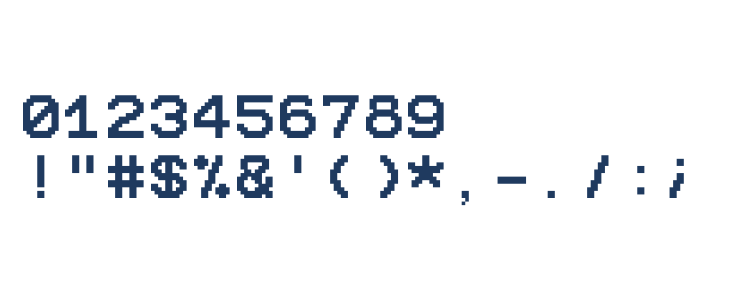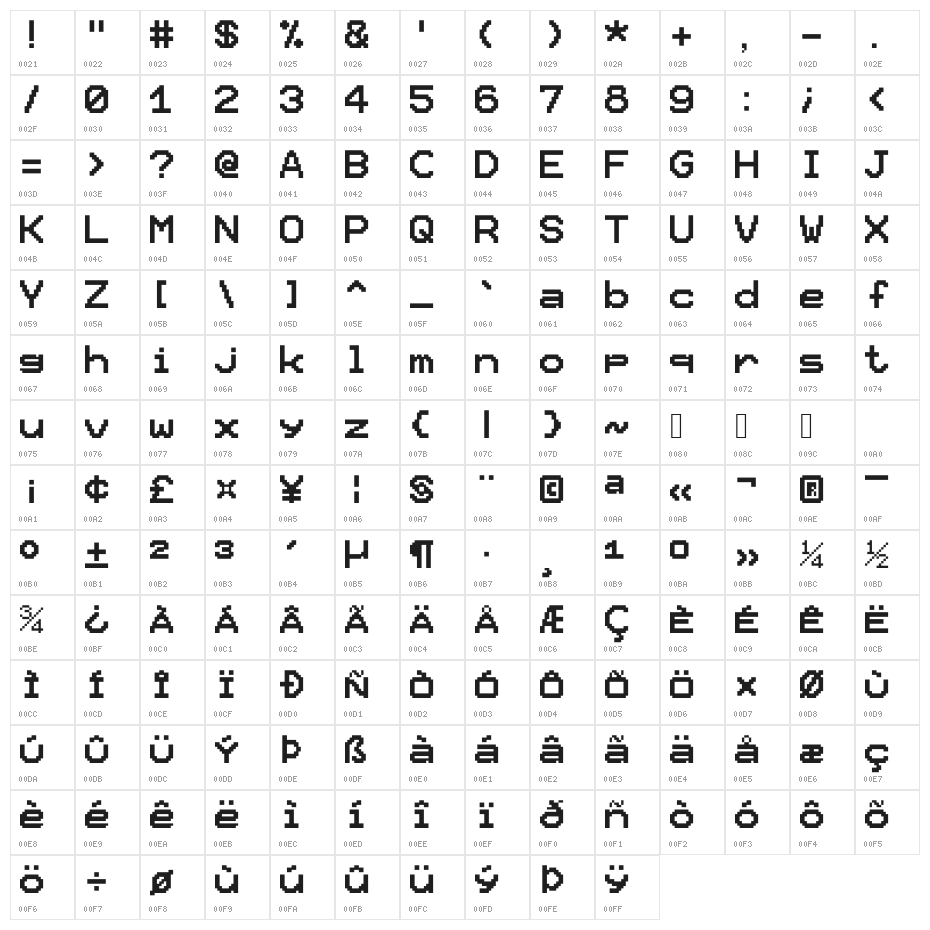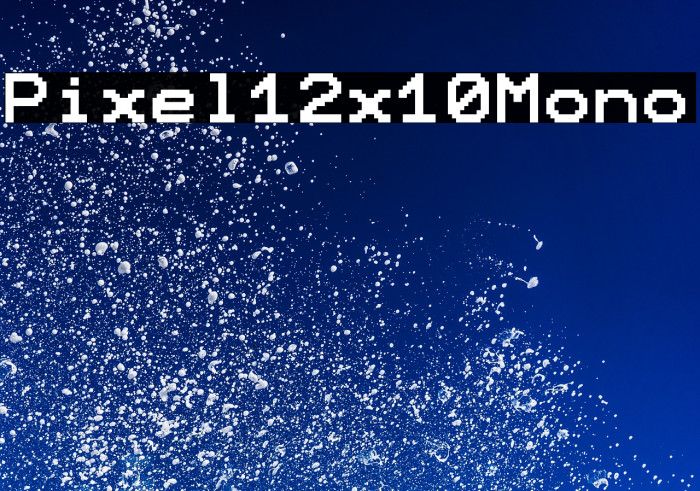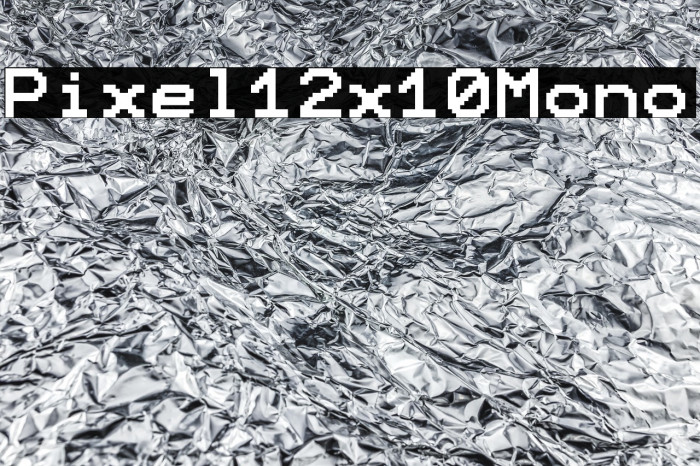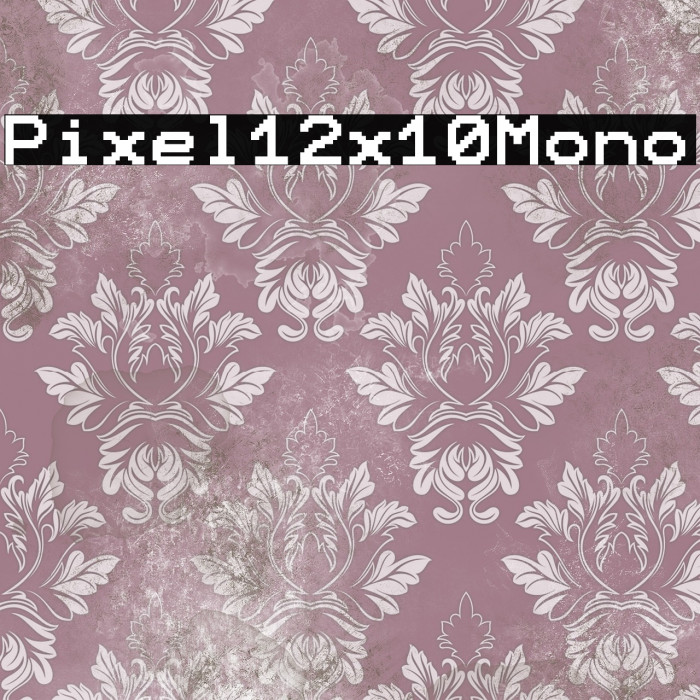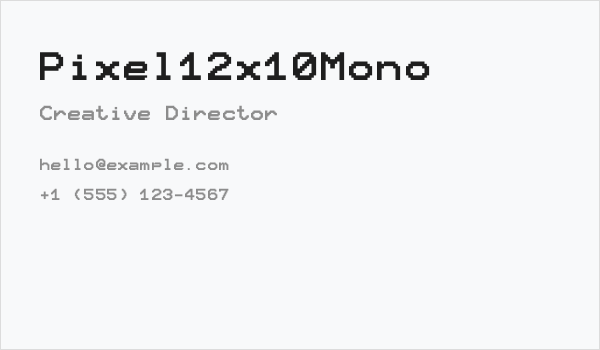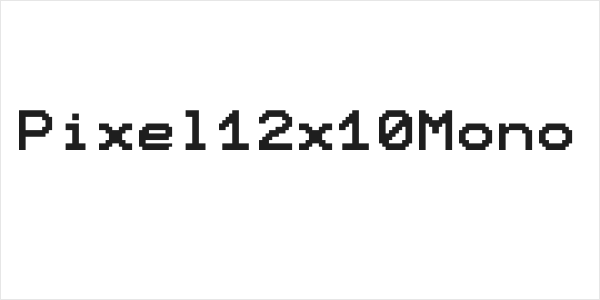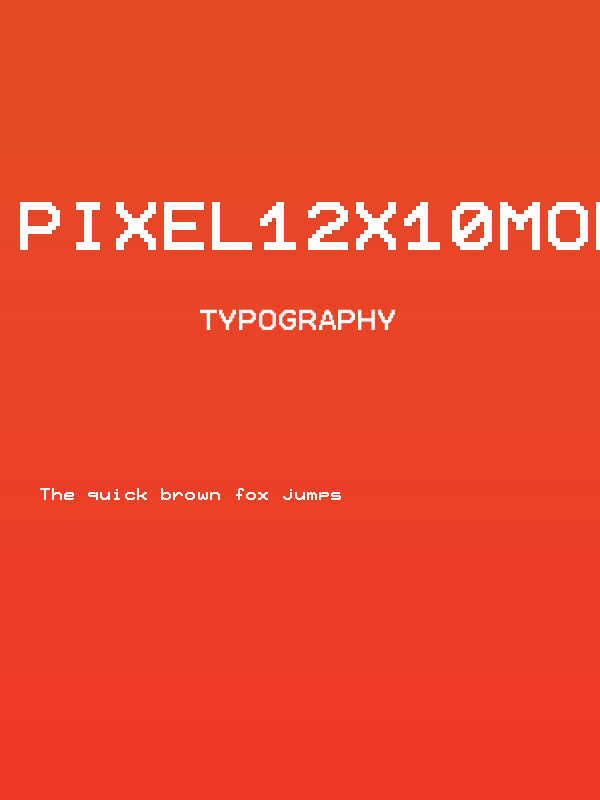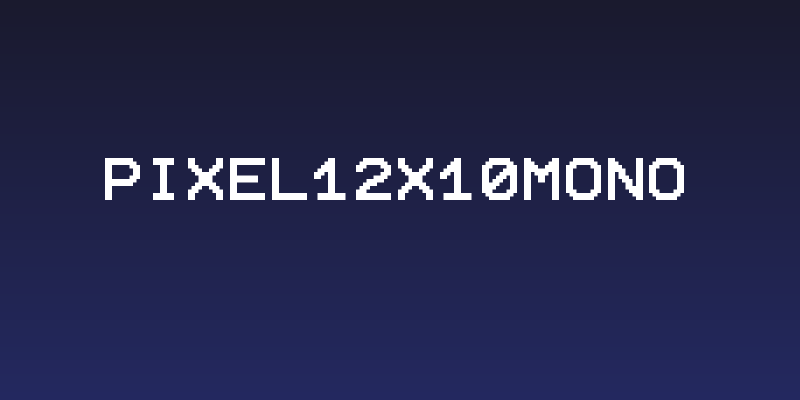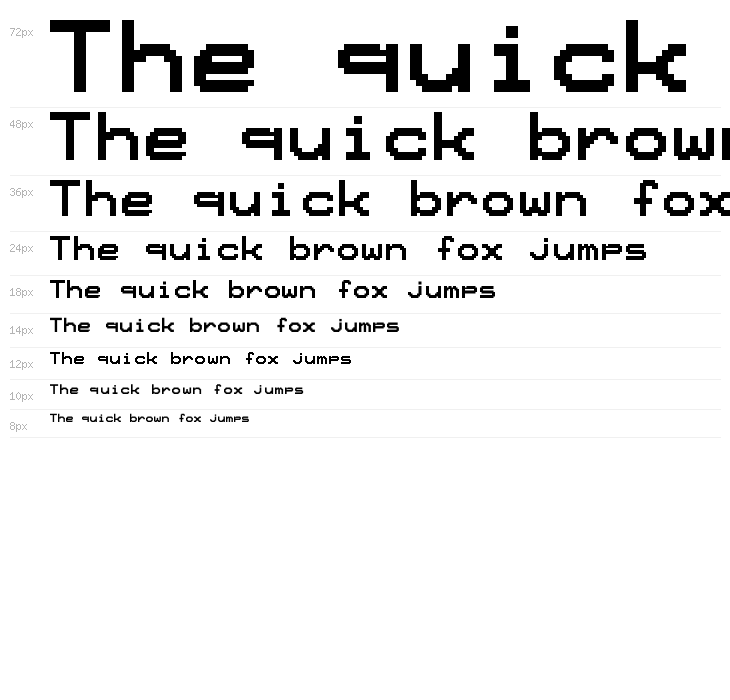
Pixel12x10Mono Font
Pixel12x10Mono Description
This font features a pixelated, monospaced design reminiscent of early computer and video game graphics. Each character is constructed with a uniform grid of pixels, giving it a distinct retro and digital aesthetic. The uppercase and lowercase letters, as well as numbers and special characters, maintain a consistent width, contributing to a balanced and orderly appearance. The simplicity and clarity of the characters make it highly legible, even at smaller sizes. This font evokes a sense of nostalgia and is ideal for projects that aim to capture the essence of classic computing or gaming environments.
| Use Case | Logos, Digital displays, Coding |
| Proposed Projects | Ideal for retro video games, digital art, coding environments, and nostalgic design projects. |